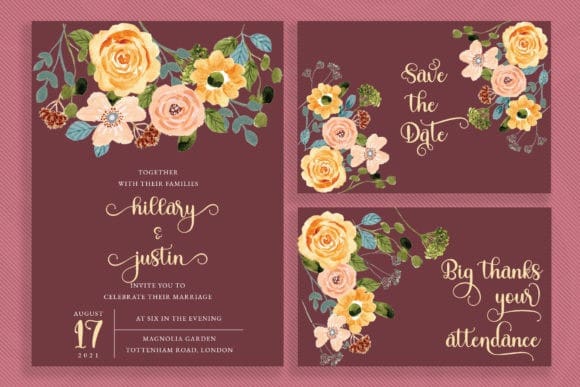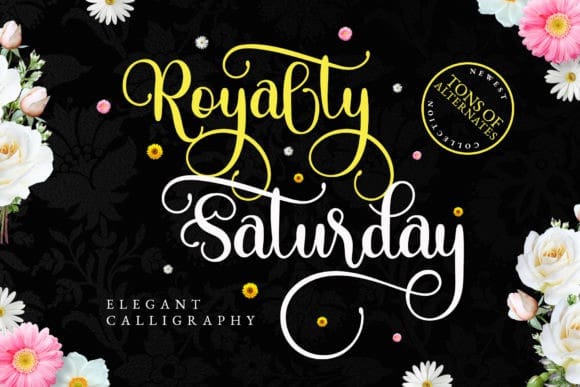
Royalty Saturday Font
Royalty Saturday Font is elegant modern calligraphy script. It is luxurious, stunning, and swirly. It has tons of alternates to give you many options in designing.